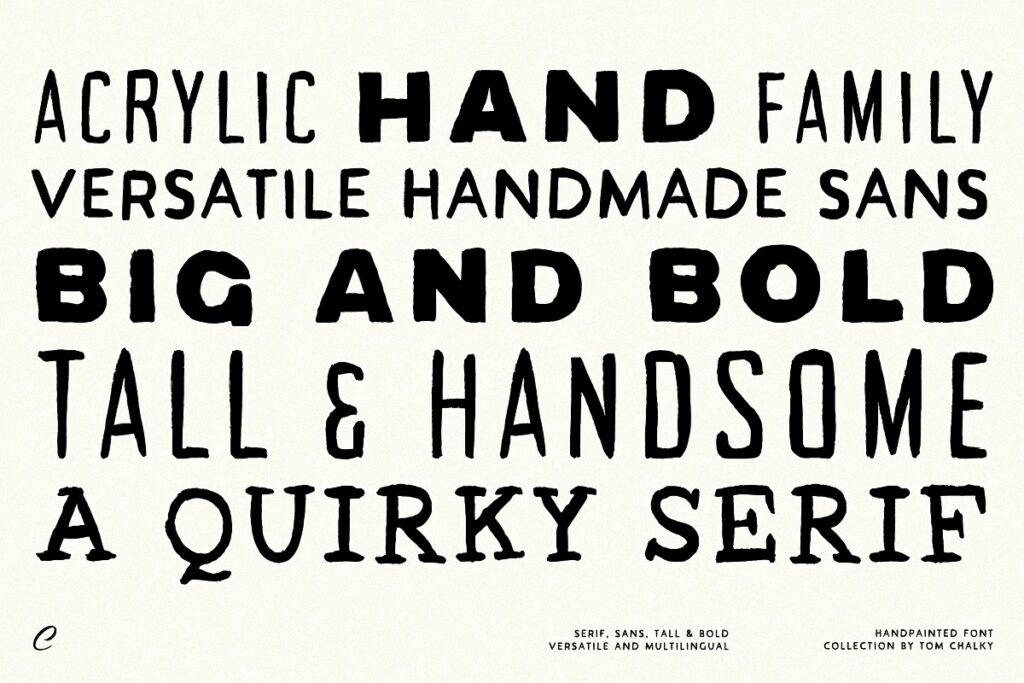
Acrylic Hand – The Perfect Brush Font Collection for Authentic Designs
Introducing the Acrylic Hand Brush Font Collection—a charming collection of four handcrafted fonts designed to bring a human touch to your creative projects. Created by Tom Chalky, these fonts exude authenticity with their perfect imperfections, making them a versatile choice for any designer looking to add personality and warmth to their work.
What’s Inside the Acrylic Hand Font Collection?
TC Acrylic Hand Sans Regular – A clean, handcrafted sans-serif font, perfect for legible headlines and sleek designs.
TC Acrylic Hand Serif Regular – A quirky serif typeface with handmade charm that pairs beautifully with its sans counterpart.
TC Acrylic Hand Tall Regular – A taller variant, ideal for making a bold statement without losing its hand-drawn appeal.
TC Acrylic Hand Thick Regular – A thicker, bolder version for when you need to really stand out.
Each of these fonts is designed to work perfectly together or individually, giving you plenty of flexibility in how you use them.
Why Choose Acrylic Hand for Your Projects?
Handmade Authenticity: Every letterform in this collection is brimming with character, thanks to its brushstroke design, adding a handcrafted vibe to your work.
Versatility: Whether you’re working on headlines, packaging, apparel, or social media graphics, Acrylic Hand’s varied styles (sans, serif, tall, and thick) make it suitable for all kinds of creative projects.
Perfect Imperfections: The organic nature of this font adds an authentic, human touch, making your designs more relatable and engaging.
Ideal Uses for Acrylic Hand
Bold Headlines: Make an impression with Acrylic Hand’s bold letterforms, whether for print or digital projects.
Packaging & Branding: Add a unique and approachable vibe to product labels, logos, or merchandise with these handcrafted fonts.
Apparel Design: Create eye-catching apparel designs that reflect your brand’s authentic personality.
Social Media Graphics: Use the Acrylic Hand font collection to craft standout social media posts, with each font adding a personal, handcrafted feel.
Stand Out with Handcrafted Charm